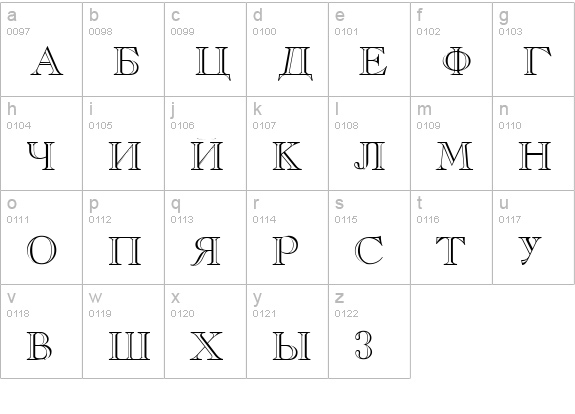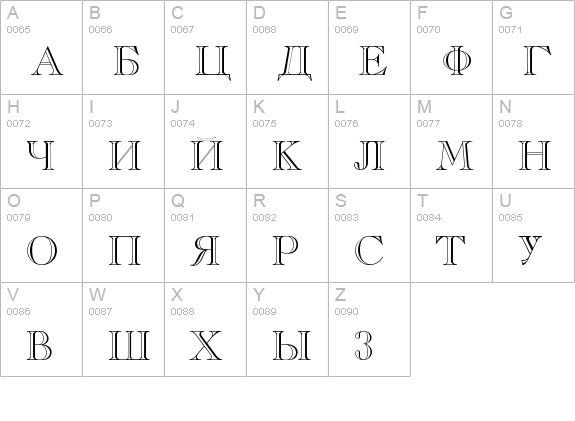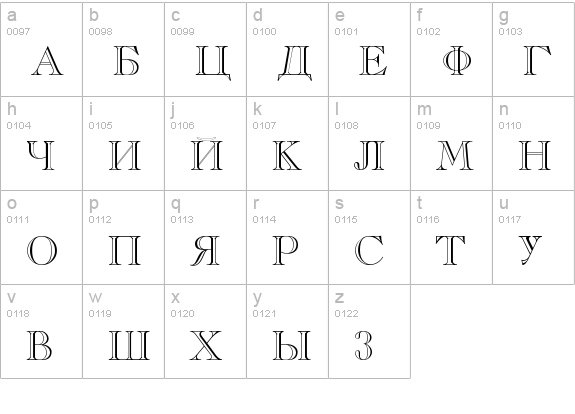
Russkij Regular Font Details
Russkij Regular is the standard, neutral variant in the Russkij typeface family \xE2\x80\x94 well suited to general body text, paragraphs, and standard typographic work.
Russkij Regular is a classic and elegant serif font that exudes sophistication and style. With its clean lines and timeless design, this font is perfect for adding a touch of elegance to any project. Whether you are designing a logo, creating a print design, or working on a website, Russkij Regular is sure to make a statement. What sets Russkij Regular apart is not only its stunning aesthetics but also the fact that it is available for free download at FontsMarket.com. This means that you can easily access this beautiful font and use it in your projects without any cost. Don't miss out on the opportunity to elevate your designs with Russkij Regular - download it today and see the difference it can make!